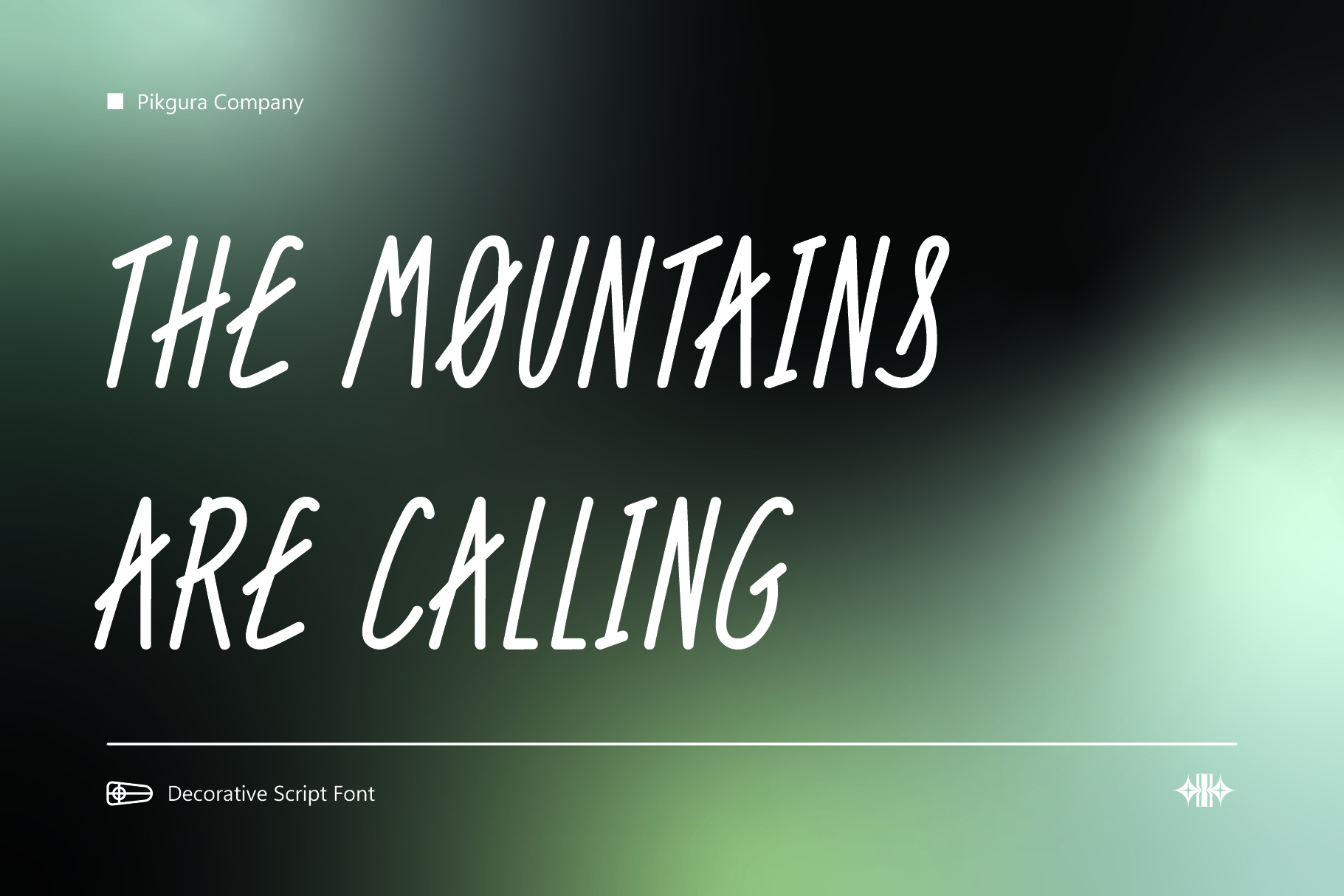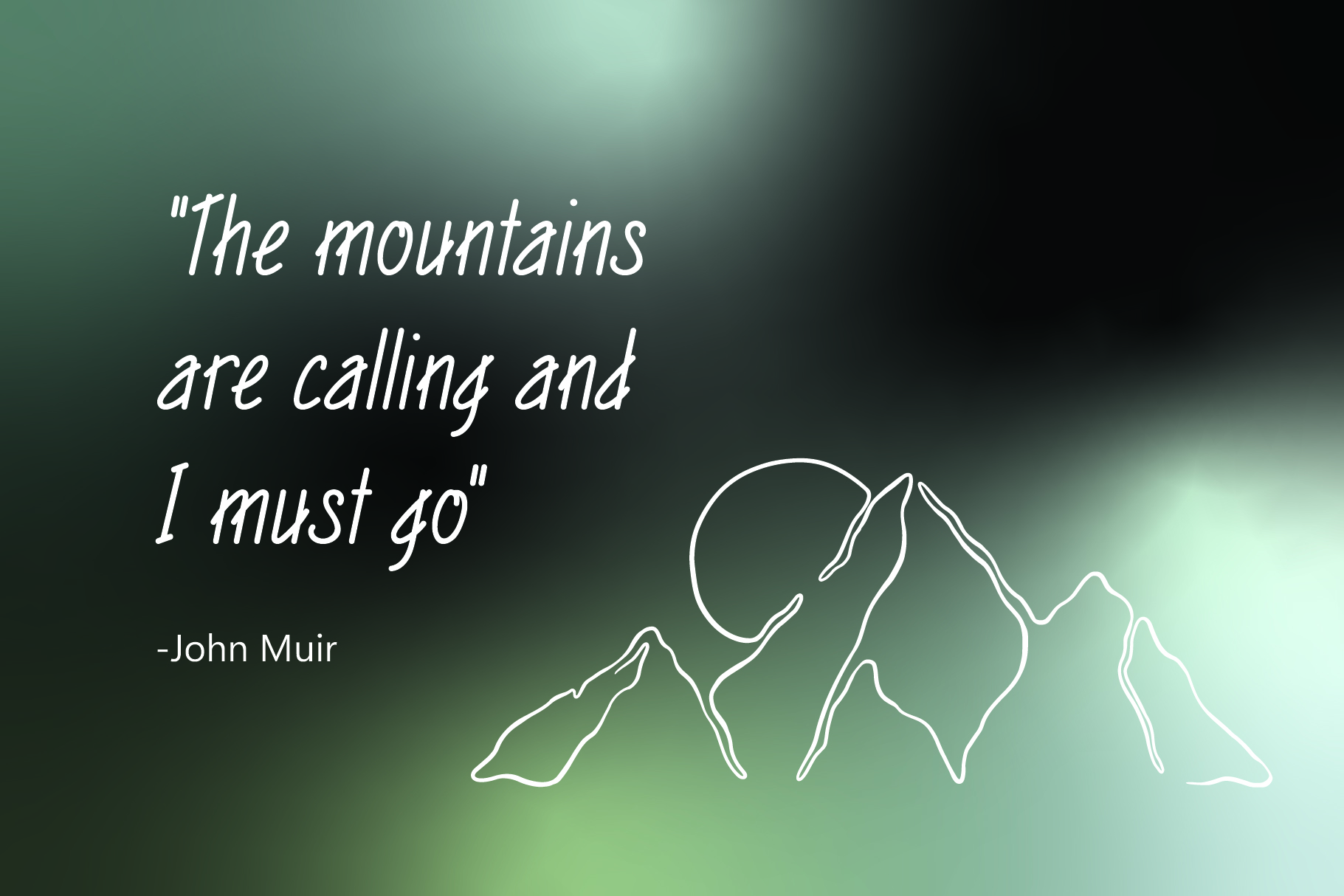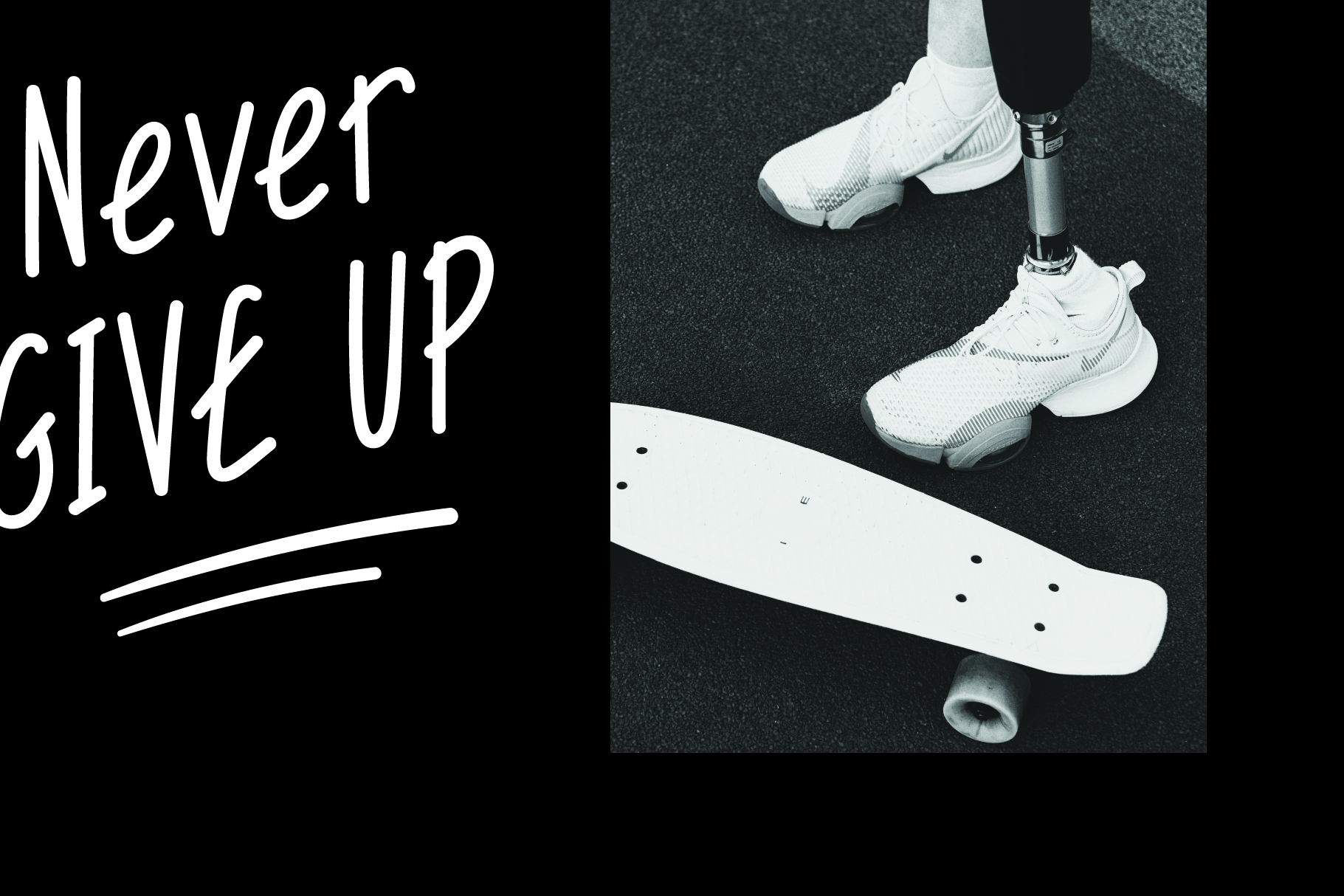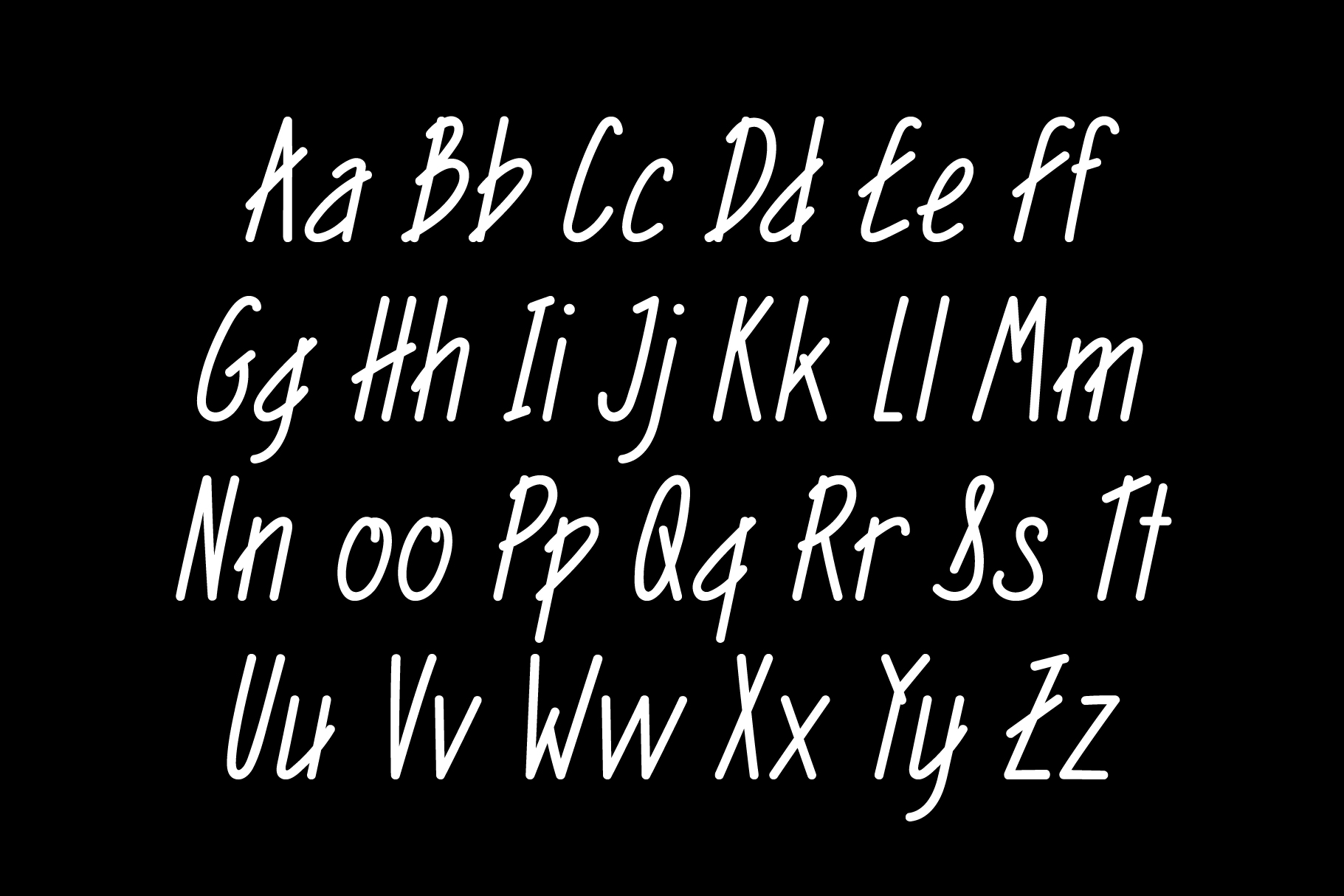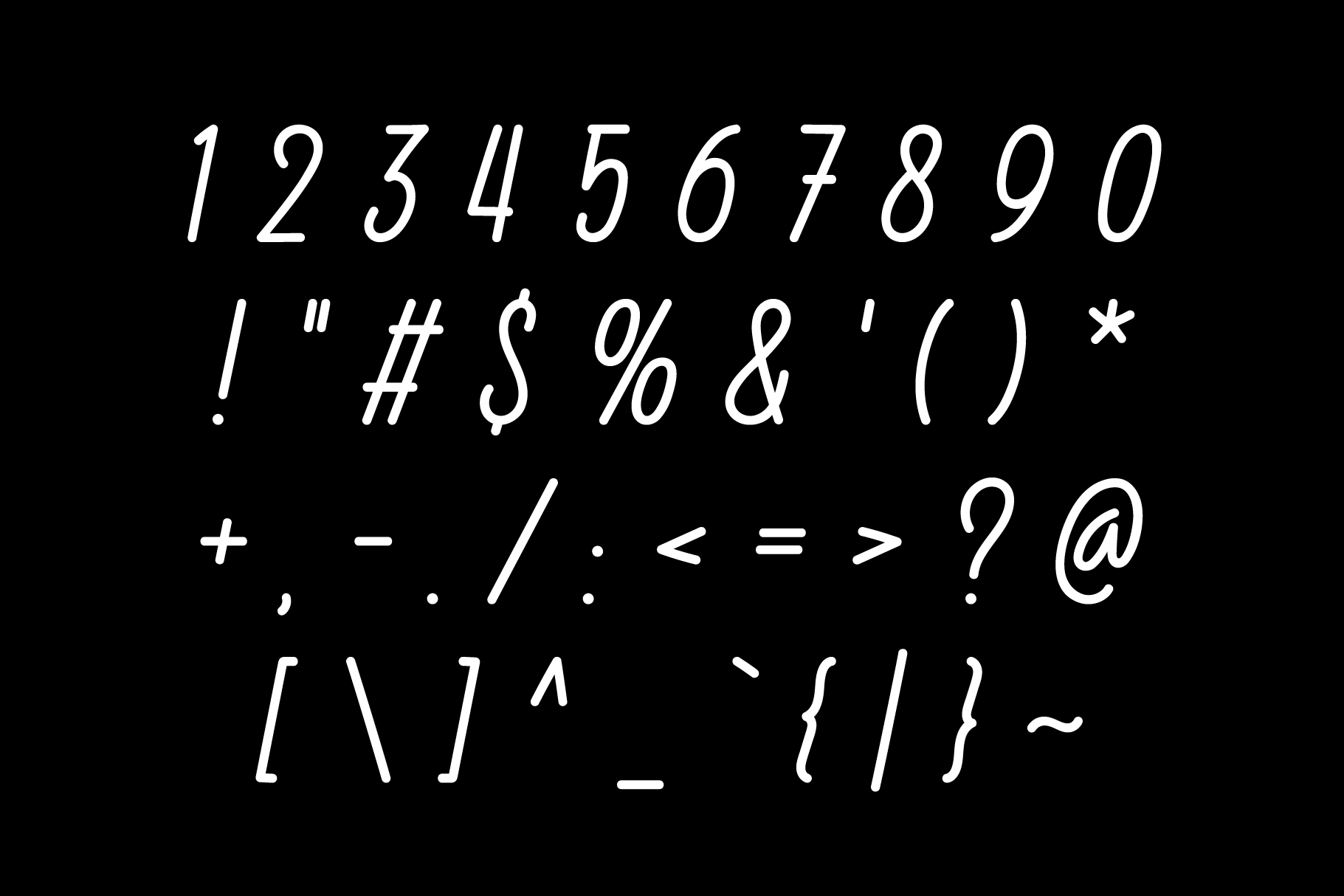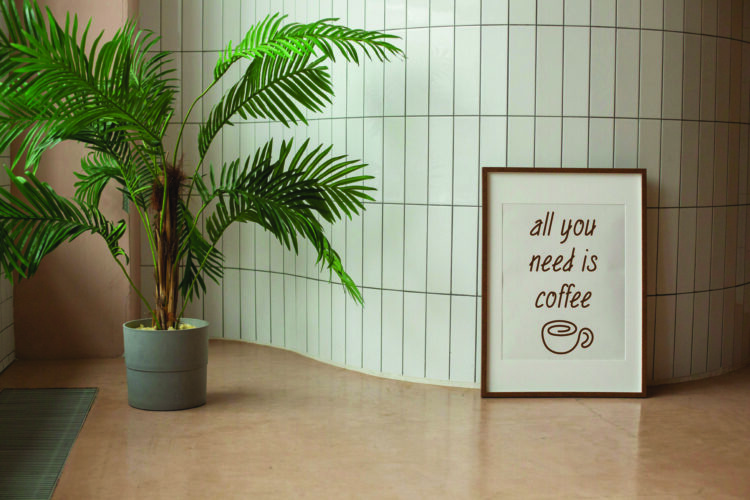
Dry Ice
Introducing Dry Ice, a charming handcrafted font inspired by marker pen writing. Each character features rounded edges, giving it a playful and whimsical appearance. The slanted design adds a touch of fun, making it perfect for posters, greeting cards, quotes, and other informal designs.
Bring your creative projects to life with Dry Ice, the font that adds a delightful and unique touch to any design!
Dry Ice – Handwritten Font